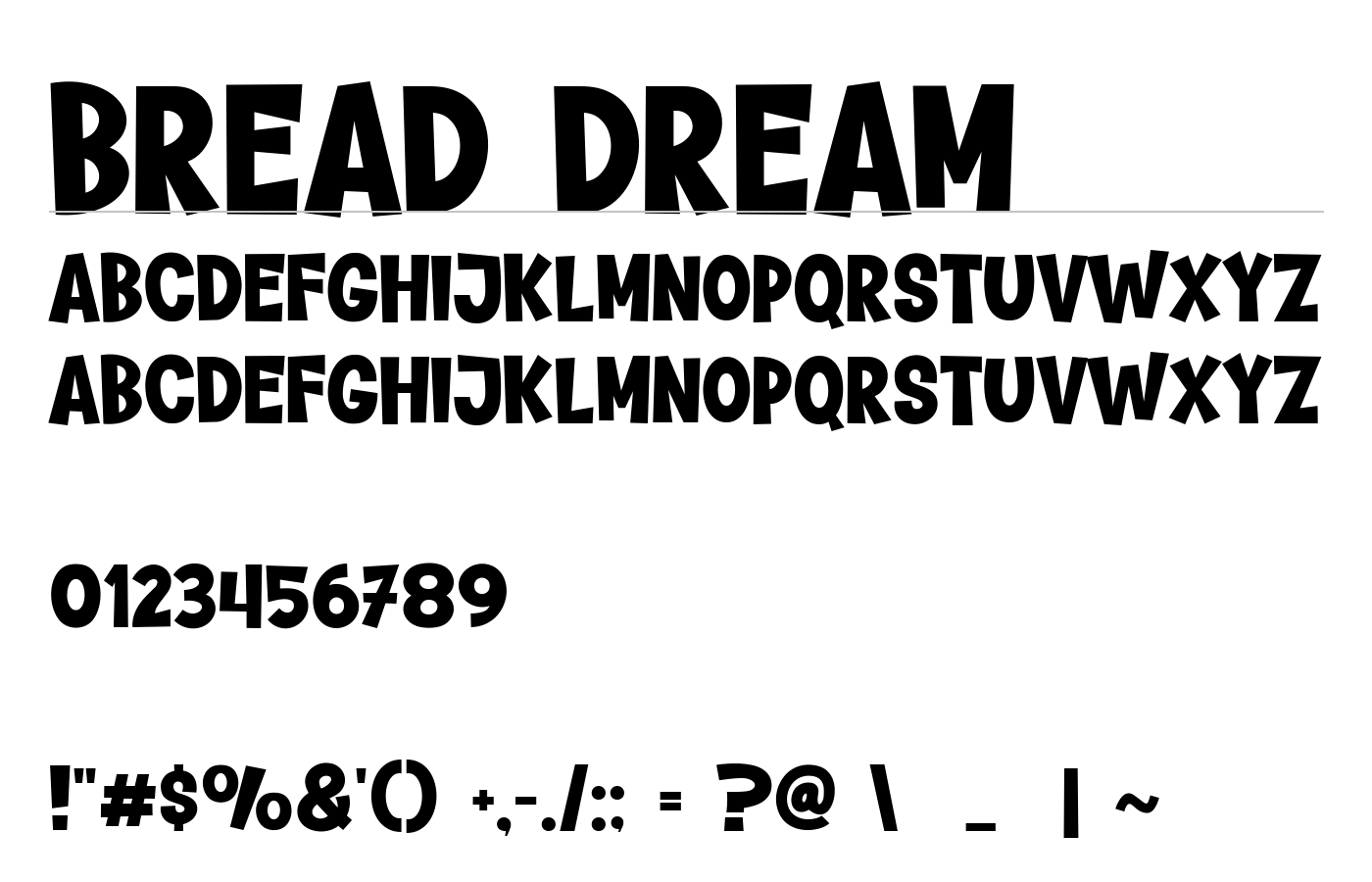
Bread Dream Font is a bold, playful sans-serif typeface with an energetic, slightly quirky character. Its thick, uneven strokes and irregular shapes give it a fun, informal feel, making it ideal for lively headlines, children's designs, and casual branding. This font works best where a friendly and eye-catching impression is needed, bringing a sense of joy and creativity to any project.
Bread Dream Font
About Bread Dream Font
| Font family | Bread Dream Font |